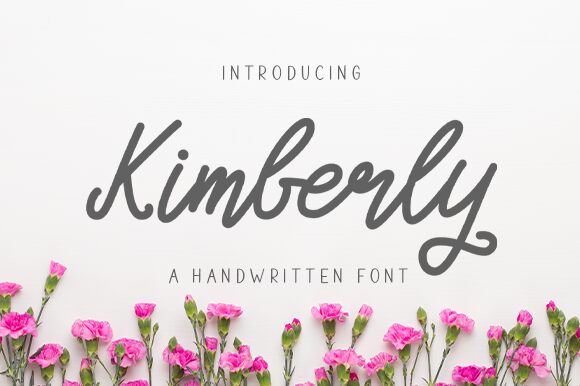
Kimberly
Kimberly is a charming semi-light handwritten font designed by Graphix Line Studio. Its semi-condensed width makes it perfect for a wide range of creative projects, from elegant wedding invitations to playful children's books. With its delicate curves and casual feel, Kimberly adds a touch of whimsy to any design. Use it for branding, packaging, social media graphics, or even product labels. The possibilities are endless with this versatile font. Let Kimberly be the perfect choice for your next project and watch as it brings your ideas to life!